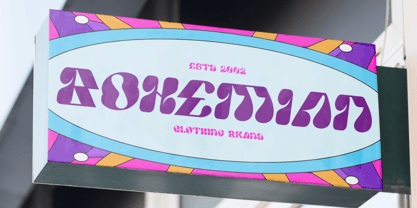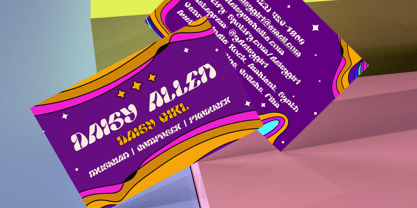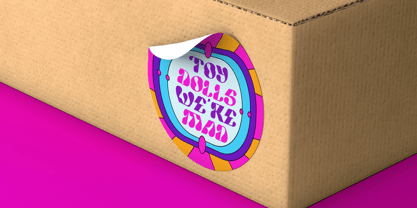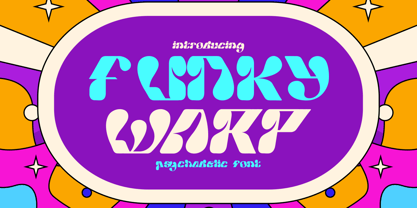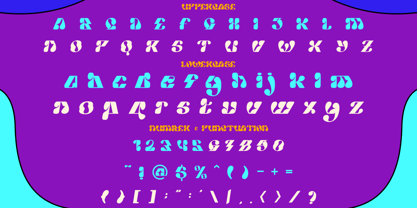
Funky Warp
Funky Warp is a vibrant psychedelic font that blends retro charm with bold, modern playfulness. Its letterforms feature thick, fluid curves and irregular negative spaces, giving each character a warped, groovy appearance. The design channels 60s and 70s vintage aesthetics, making it perfect for projects that radiate energy and personality. The font includes uppercase, lowercase, numbers, and punctuation, all designed with the same quirky, eye-catching style for maximum visual impact.
This font is ideal for logos, posters, album covers, packaging, and event branding. Its unique style works beautifully for bohemian shops, music festivals, retro cafés, and fashion brands that want to stand out. Funky Warp’s bold shapes are easy to read at large sizes while delivering a distinctive personality that turns any text into a statement. Whether used for stickers, invitations, or film titles, this font transforms ordinary designs into colorful, nostalgic masterpieces.